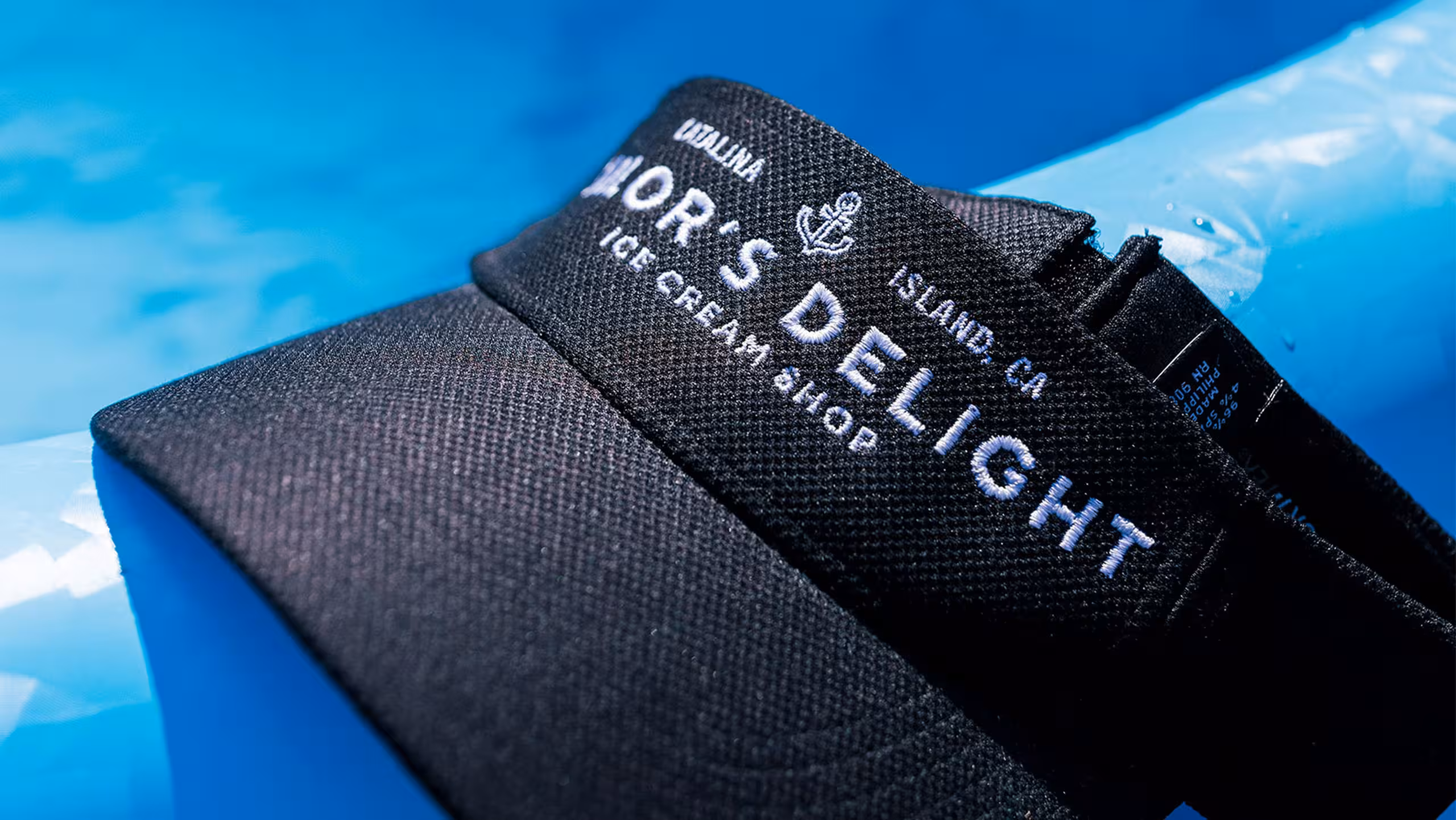
30+ Best Fonts For Embroidery
The world is full of typefaces and fonts galore—so which are best-fit for custom embroidery?
Searching through the millions of fonts can be quite a task and a bit overwhelming. We understand that you might ask, "Where do I start?!"
Let us provide you with comfort and many options, but not TOO many.
Our embroidery team has over a decade of experience. As a company, we've seen many fonts meet the fabric with embroidery needles over the years, so we're here to help you determine the best fit for your custom apparel projects.
Read along for inspiration as we share over 30 fonts perfect for embroidery.
We're very FONT of these. They're our TYPE.
When it comes to embroidery fonts, it's essential to choose a font that is both easy to read and visually appealing.
Typefaces, also known as font families, are a group of related fonts that share a similar design aesthetic.
Here are some of the best typefaces for embroidery, and we'll do a deeper dive into fonts within each one.
Serif- Serif typefaces are classic and elegant.
Sans Serif- Sans-serif typefaces are modern and minimalist.
Script- Script typefaces are elegant and flowing, making them an excellent choice for adding a touch of sophistication to embroidery designs.
Display- Display typefaces are bold and attention-grabbing, making them an excellent choice for larger embroidery designs.
Monogram- Monogram typefaces are designed for creating monograms, typically used for personalizing items like towels, napkins, and clothing.
It's important to note that the best typeface for embroidery will depend on the specific design and personal preference. Some typefaces may work better for particular embroidery techniques or methods, so it's always a good idea to experiment with a few options before committing to a specific typeface for your project.
What Makes a Good Embroidery Font?
Not all fonts translate well to thread. When choosing the right embroidery letters font, consider these key qualities:
1. Clear, simple shapes
Intricate serifs or thin strokes often get lost in stitching, especially at small sizes.
2. Consistent line weight
Even thickness helps the letters stitch more evenly.
3. Good spacing (a.k.a. legibility)
Fonts with tight kerning can turn into one stitched blob. Open, breathable spacing is your friend.
4. Minimal decorative elements
Swashes, curls, and flourishes may not translate cleanly to thread—unless the design is intentionally large.
5. Thread-friendly curves
Smooth curves stitch better than sharply angled shapes.
Keeping these qualities in mind will help you choose strong, clean embroidery font designs that look great on apparel.
Typeface #1: Serif
Times New Roman is a timeless serif font that is easy to read and looks great on various fabrics. It is famous for embroidery on formal items like dress shirts and jackets.
Baskerville is a classic serif font that has a timeless elegance. It is an excellent choice for embroidery on vintage-inspired designs or more traditional items like handkerchiefs and linens.
Georgia is a modern serif font popular for embroidery on casual clothing and accessories. It is easy to read and looks great on a variety of fabrics.
Garamond is a popular choice for embroidery on elegant items like wedding dresses and formalwear. It has a classic, refined look that adds a touch of sophistication to any design.
Book Antiqua is a serif font that has a classic, vintage look. It is an excellent choice for embroidery on tablecloths, napkins, and linens.
Palatino is a versatile serif font that looks great on various fabrics. It is easy to read and has a classic, elegant look perfect for formal or vintage-inspired designs.
Century Schoolbook is a classic serif font that is an excellent choice for embroidery on school uniforms, jackets, and bags. It is easy to read and has a traditional look that works well with various designs.
Typeface #2: Sans-serif
Helvetica is a modern minimalist sans-serif font that is a popular choice for embroidery on casual clothing and accessories. It's easy to read and looks great on a variety of fabrics.
Arial is a versatile sans-serif font that is an excellent option for embroidery on items such as backpacks, hats, and jackets. It is easy to read and has a modern, clean look that works well with various designs.
Futura is a geometric sans-serif font that has a futuristic look. It's popular in sports uniforms, gym bags, and backpacks.
Franklin Gothic is a bold sans-serif font that is an excellent choice for embroidery on larger designs like banners and flags. It has a robust and attention-grabbing look that works well with bold designs.
Cooper Black is a distinctive sans-serif font popular for t-shirts and sweatshirts. It has a bold, playful look which is excellent for casual designs.
Lucida Sans is a clean, modern sans-serif font that looks great on various fabrics. Great for embroidery on items such as polo shirts, hats, and bags.